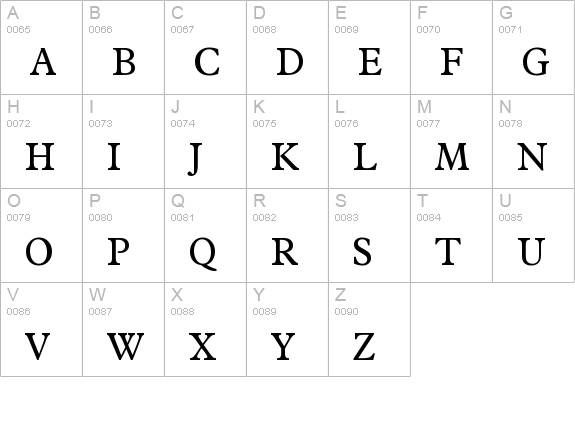
Placid-Regular Font Details
Placid-Regular is the standard, neutral variant in the Placid typeface family \xE2\x80\x94 well suited to general body text, paragraphs, and standard typographic work.
Placid-Regular font is a modern and versatile typeface that exudes a sense of calm and tranquility. Its clean lines and balanced proportions make it perfect for a wide range of design projects, from branding to editorial work. The font's smooth curves and gentle serifs give it a friendly and approachable feel, making it ideal for conveying a sense of warmth and professionalism. What sets Placid-Regular font apart is that it is available for free download at FontsMarket.com. This means that designers and creatives can easily access this high-quality font without any cost, making it a valuable addition to their toolkit. Whether you're working on a website, a poster, or a logo, Placid-Regular font is sure to enhance your design with its timeless elegance and readability. Download it today and elevate your projects with this beautiful and free font.